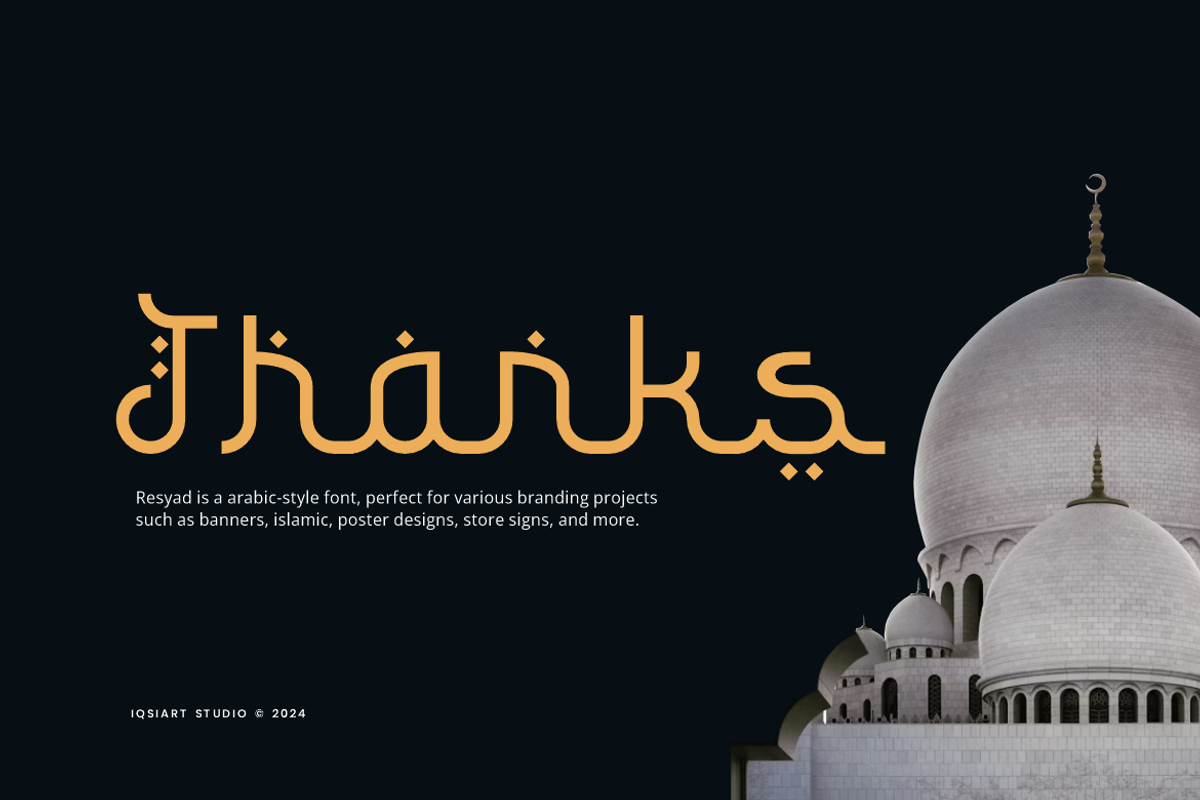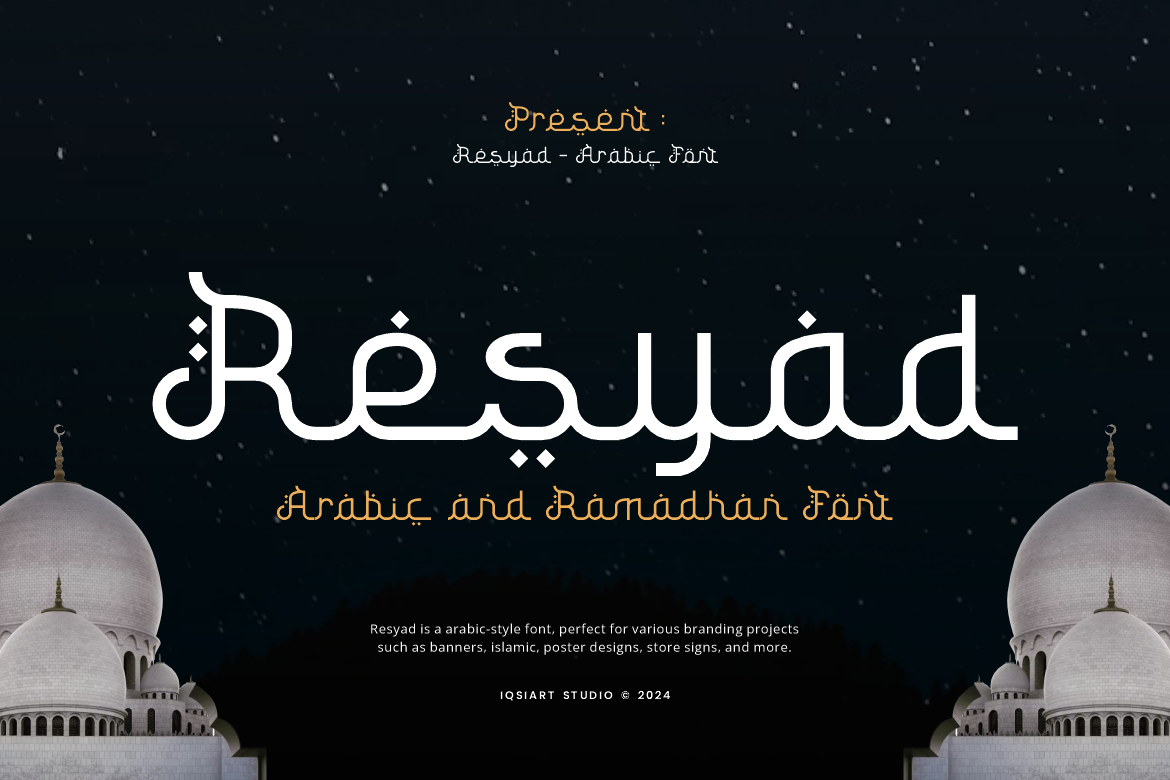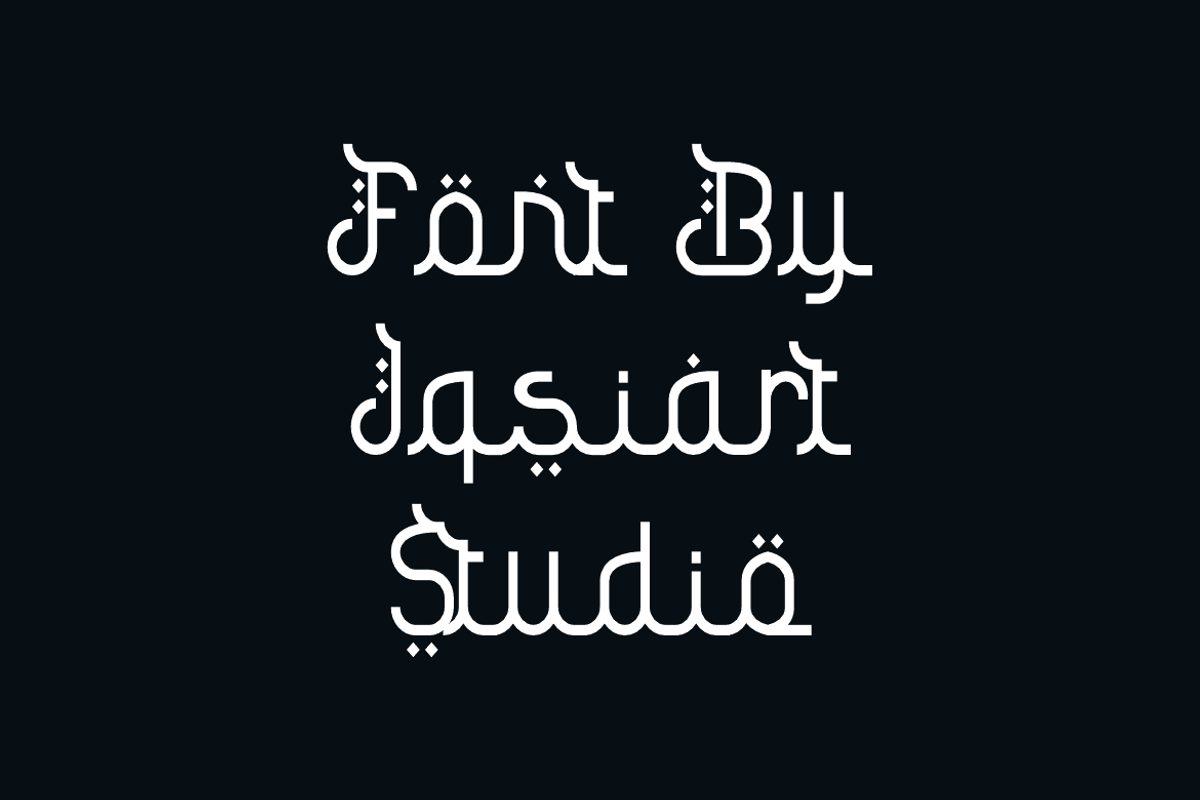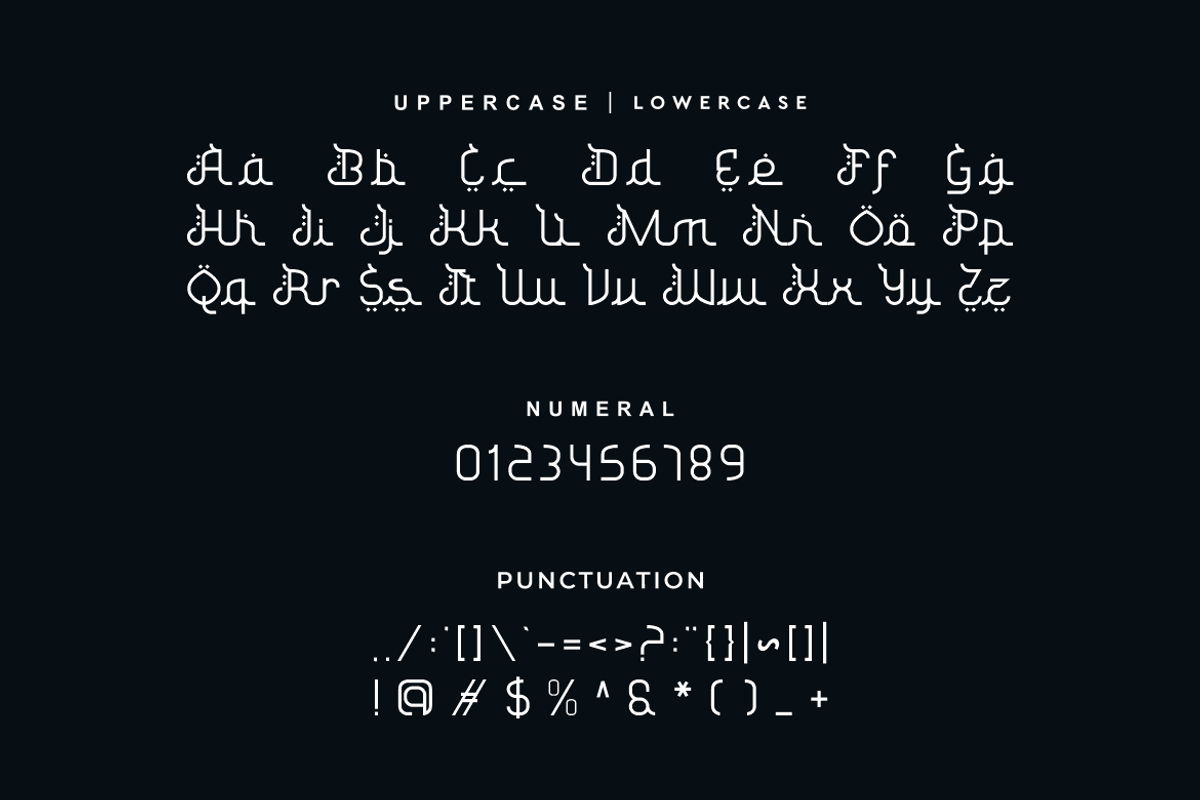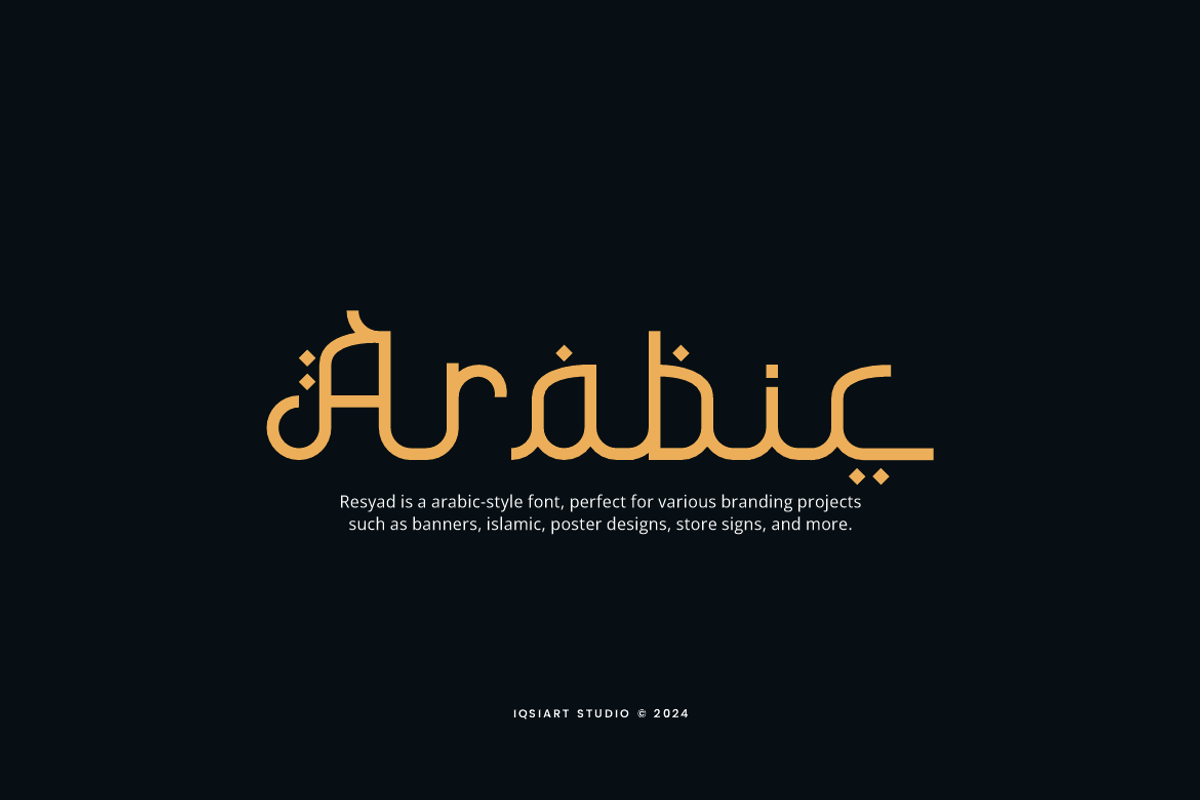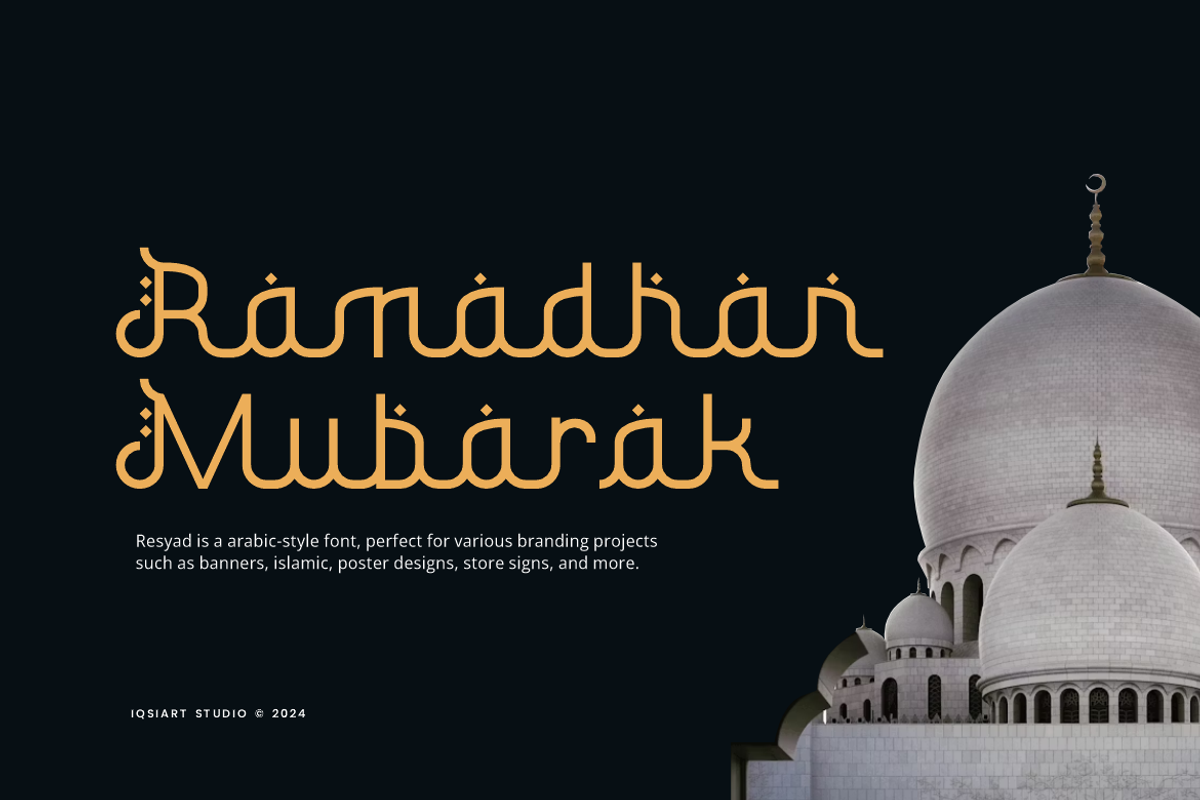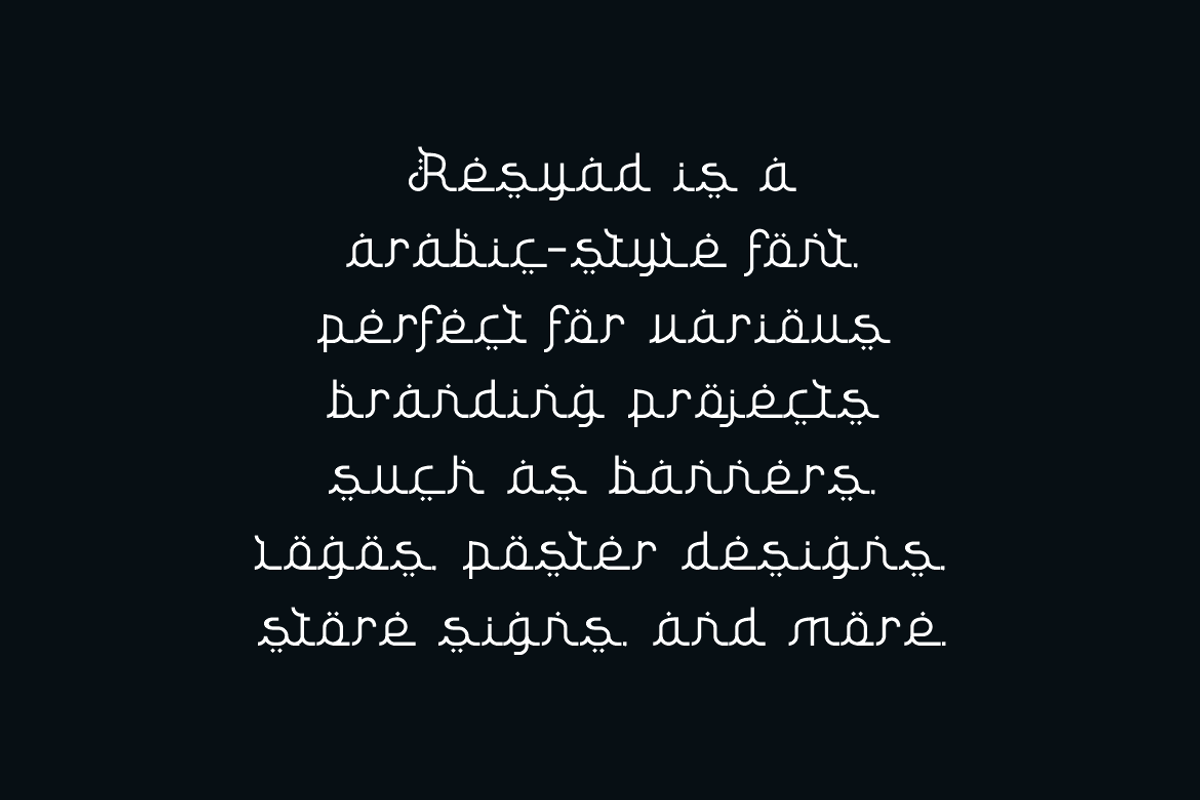
Resyad - Arabic Ramadhan Font
Resyad Font is a arabic and authentic display typeface that suits a variety of design needs. We offer a wide range of themes and font styles — visit our profile to explore more and find the perfect style for your project.